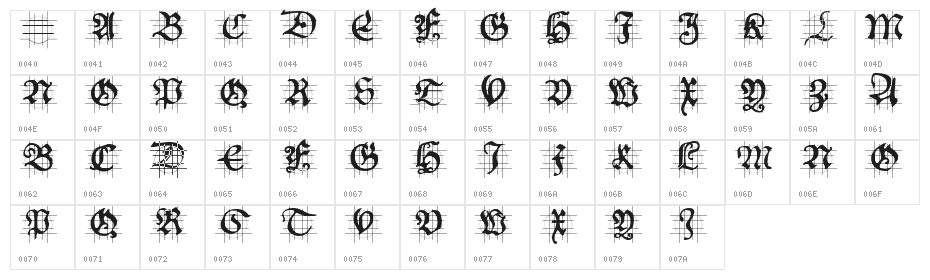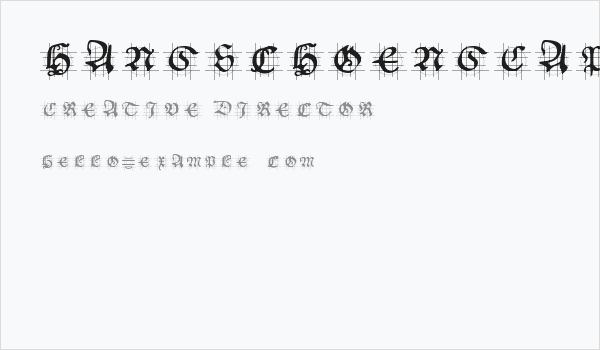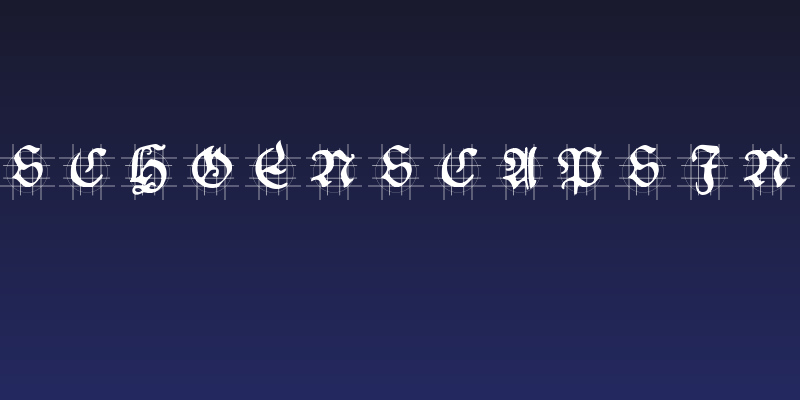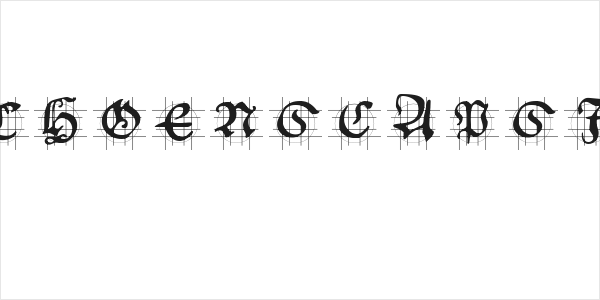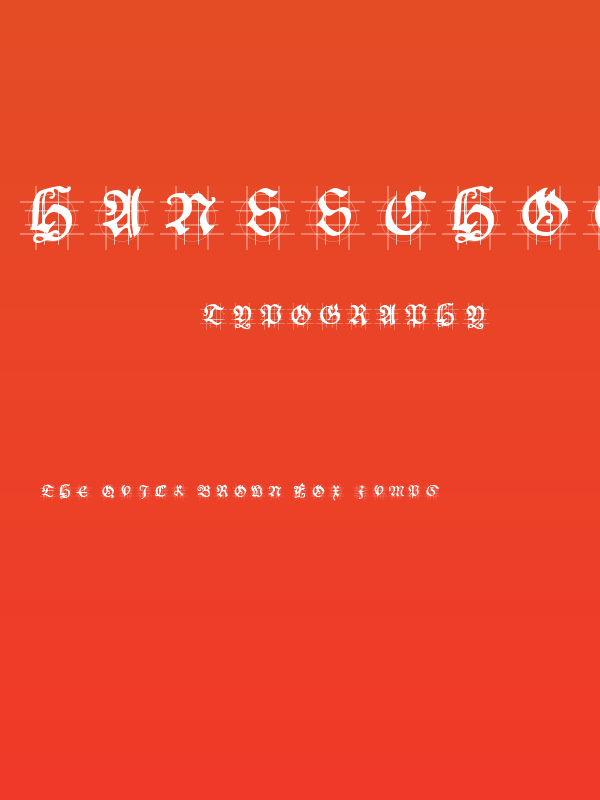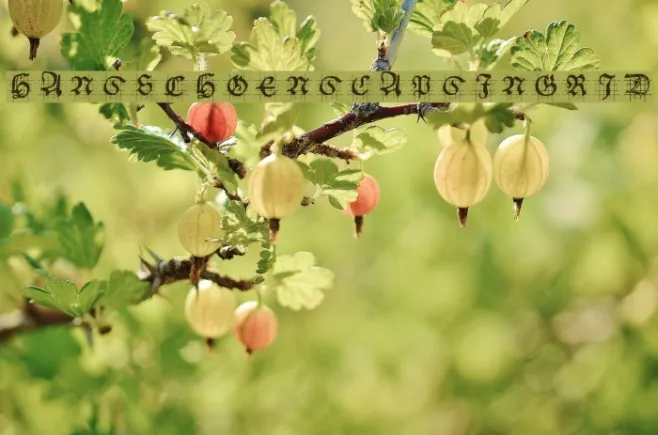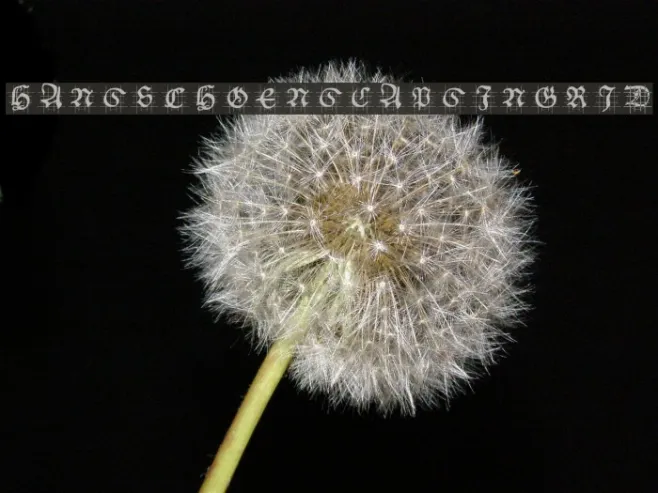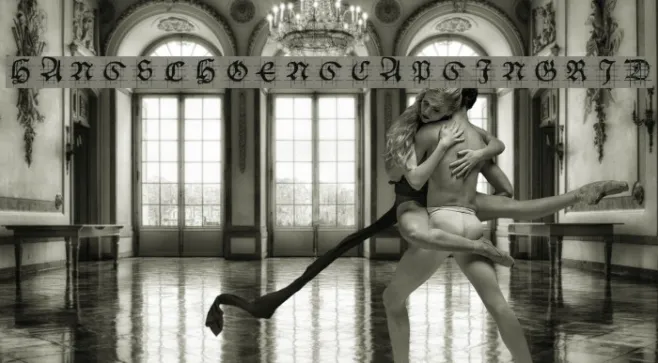
HansSchoensCapsInGrid Font
HansSchoensCapsInGrid Description
This font exhibits a classic blackletter style, characterized by its intricate and ornate letterforms. Each character is adorned with elaborate flourishes and sharp angles, reminiscent of medieval script. The strokes are bold and dramatic, with high contrast between thick and thin lines, giving it a striking appearance. The overall design is highly decorative, making it suitable for projects that require a historical or gothic aesthetic. The uppercase and lowercase letters maintain a consistent style, ensuring uniformity across text. Special characters are equally detailed, adding to the font's cohesive look.
| Proposed Projects | Ideal for historical documents, gothic-themed designs, book covers, or branding that requires a medieval touch. |